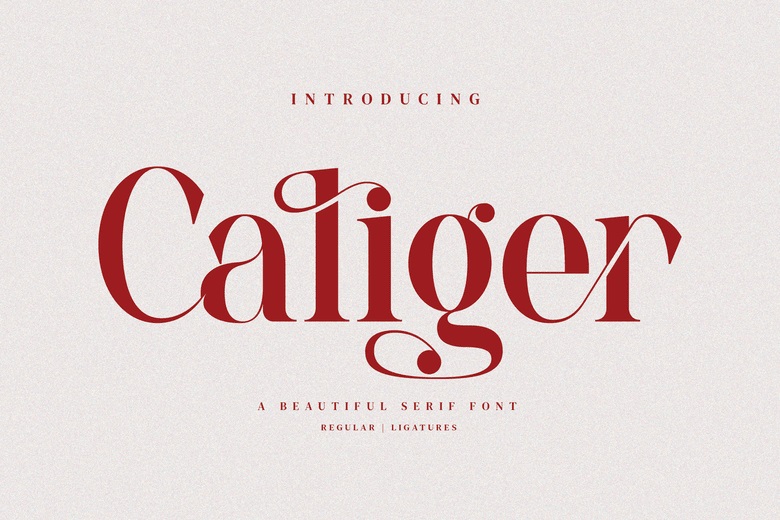
Caliger Font
Caliger is a minimalistic ligature typeface designed based on the famous logo, which would be ideal for creating templates, brochures, videos, advertising and branding logos, and more.
Caliger Serif Font